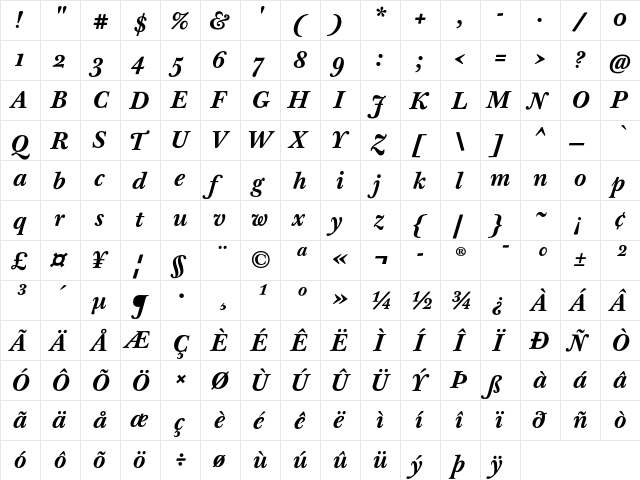
Baskerville Ten OT Bold Italic Font Preview
Baskerville Ten OT Bold Italic
Baskerville Ten OT Bold Italic Font Details
| Designer | Frantisek Storm |
Design Context for Baskerville Ten OT Typeface
Baskerville Ten OT offers clean, dependable letterforms without strong stylistic allegiance, making it a practical choice for designers who need flexibility. The slanted form adds forward momentum and visual energy. Its bold stroke weight gives it real presence on the page.
Pro Tip: Use Baskerville Ten OT for emphasis, pull quotes, and subheadings where its slanted energy can add rhythm to the layout.